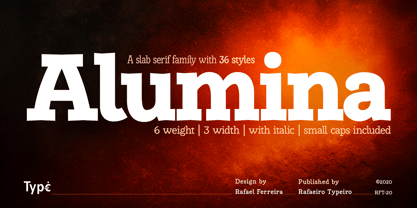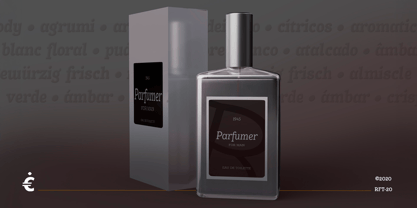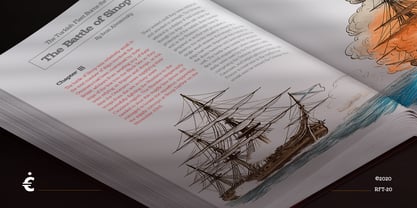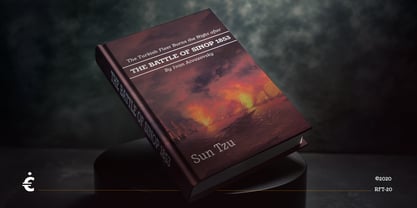
Alumina
by Rafaeiro Typeiro
The Alumina Font Family was designed by Rafael Ferreira and published by Rafaeiro Typeiro. Alumina contains 36 styles and family package options.
Discover Alumina, a typeface that exudes elegance and authority. Its robust weights demand attention, while lighter variants display grace. From bold statements to subtle emotions, Alumina empowers your creativity effortlessly.
Suitable for diverse mediums, Alumina remains legible and versatile. Unleash customization with OpenType features like ligatures and fractions. Embrace Alumina as your creative companion, sparking change and expression.
Designers: Rafael Ferreira
Publisher: Rafaeiro Typeiro
Foundry: Rafaeiro Typeiro
Design Owner: Rafaeiro Typeiro